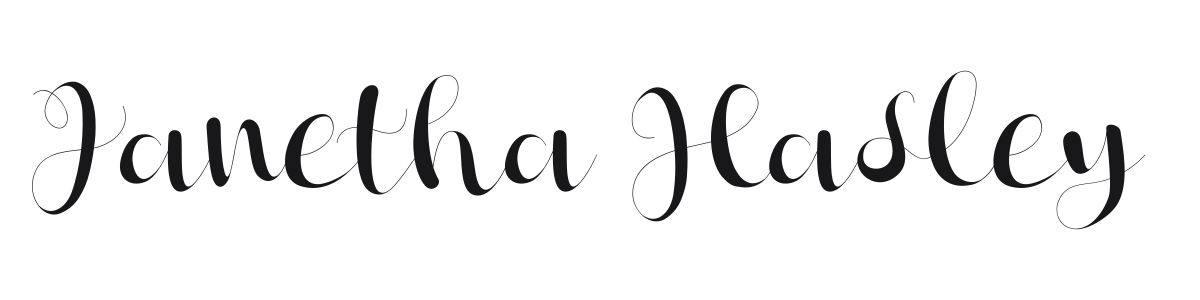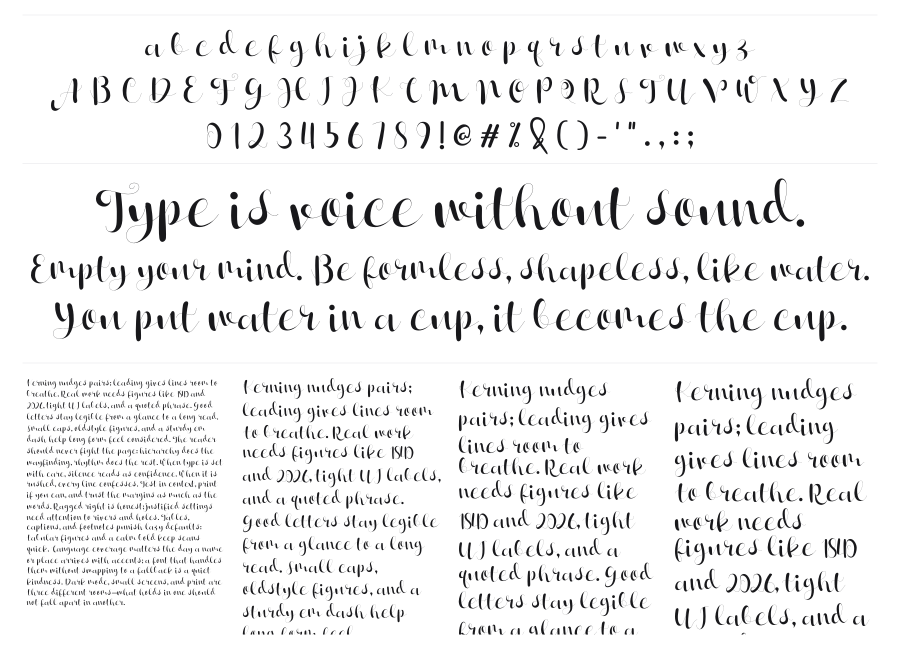
Janetha Hasley
Janetha Hasley is a contemporary calligraphic script with bold swashes, bouncy rhythm, and high stroke contrast between hairline thins and full-bodied downstrokes. The flowing loops and sweeping tails give it a hand-lettered warmth that sits comfortably between casual and elegant. It works naturally across wedding stationery, packaging, logos, and any project that calls for expressive, romantic typography.